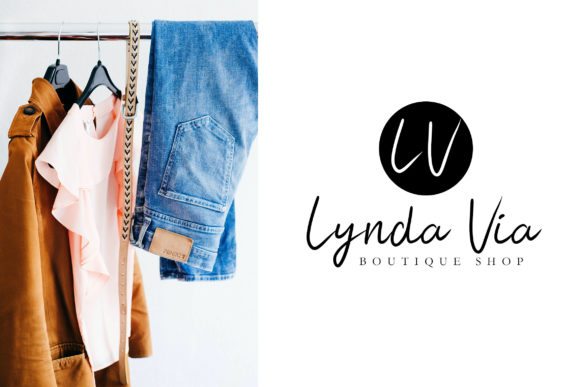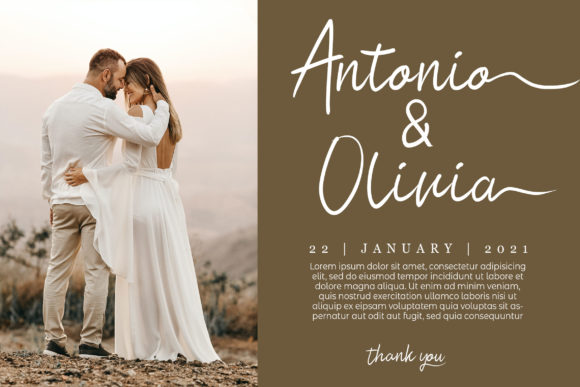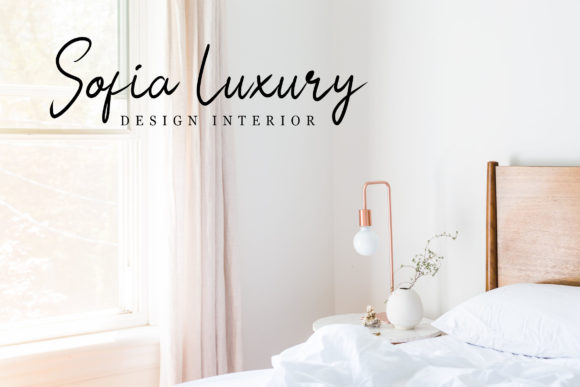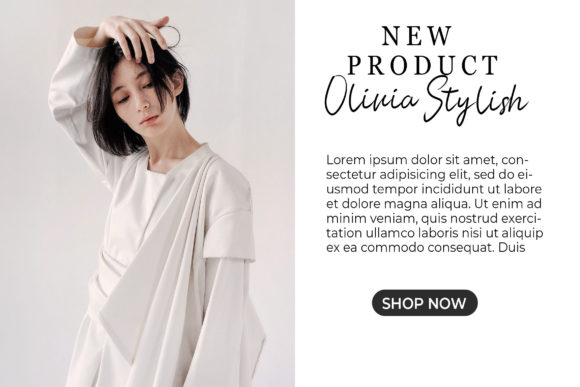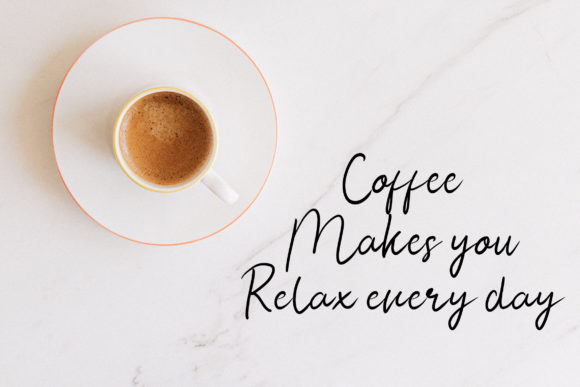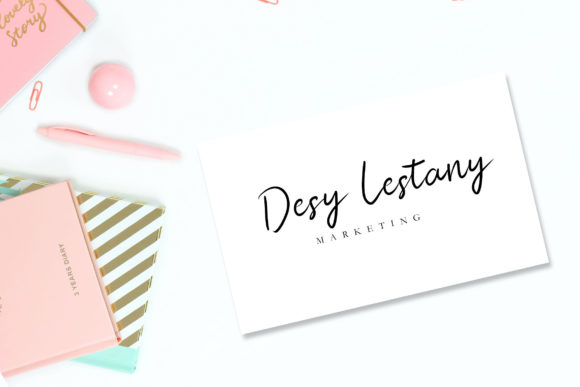
Amasya Font: The Ultimate Choice for Designers and Crafters
Are you tired of using the same old fonts in your designs? Look no further! Amasya Font is here to revolutionize your creative projects with its incredibly versatile and adorable style. This thin and cute handwritten font is perfect for designers and crafters who want to add a personal touch to their work.
What is Amasya Font?
Amasya Font is a modern, handwritten font that exudes elegance and simplicity. Its thin strokes and delicate curves make it a perfect choice for designs that require a touch of sophistication. Whether you’re working on a logo, branding project, or social media graphics, Amasya Font is sure to impress.
Features of Amasya Font
- Thin and Cute: Amasya Font boasts a unique, thin style that’s both visually appealing and easy to read.
- Handwritten: The font’s handwritten style gives it a personal and organic feel that’s perfect for designs that require a human touch.
- Versatile: Amasya Font is incredibly versatile and can be used in a wide range of designs, from logos and branding to social media graphics and crafts.
- Elegant: The font’s delicate curves and thin strokes make it a perfect choice for designs that require a touch of elegance and sophistication.
Why Choose Amasya Font?
So, why should you choose Amasya Font for your next design project? Here are just a few reasons:
- Unique Style: Amasya Font offers a unique and refreshing style that’s sure to set your designs apart from the crowd.
- High-Quality: Amasya Font is a high-quality font that’s designed to deliver exceptional results in all your design projects.
Design Ideas Using Amasya Font
Amasya Font is incredibly versatile and can be used in a wide range of designs. Here are some ideas to get you started:
- Logo Design: Use Amasya Font to create a unique and memorable logo for your brand or business.
- Social Media Graphics: Create stunning social media graphics using Amasya Font and make your posts stand out.
- Branding: Use Amasya Font to create a consistent brand identity across all your marketing materials.
- Crafts: Amasya Font is perfect for crafters who want to add a personal touch to their projects, such as handmade cards, scrapbooking, and more.
In conclusion, Amasya Font is an exceptional choice for designers and crafters who want to add a touch of elegance and sophistication to their designs. Its unique, thin, and cute handwritten style makes it perfect for a wide range of projects, from logos and branding to social media graphics and crafts. With its ease of use, high-quality design, and cost-effectiveness, Amasya Font is sure to become your go-to font for all your design needs.